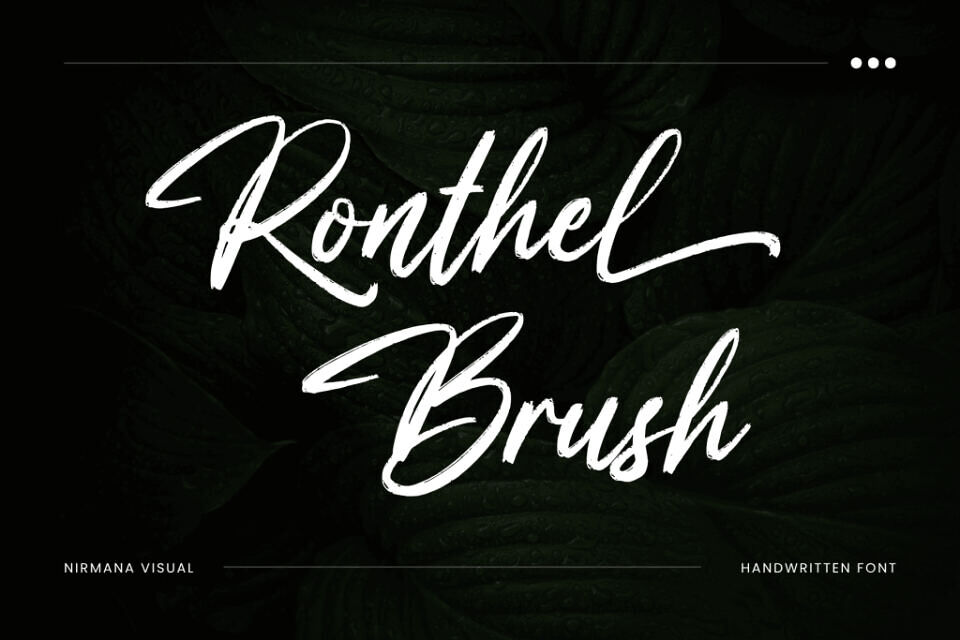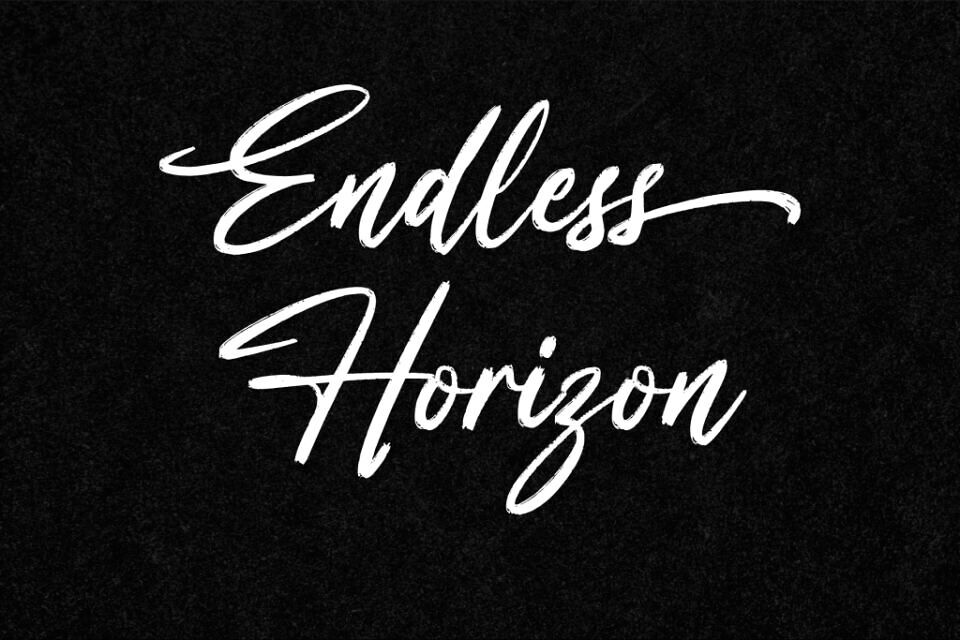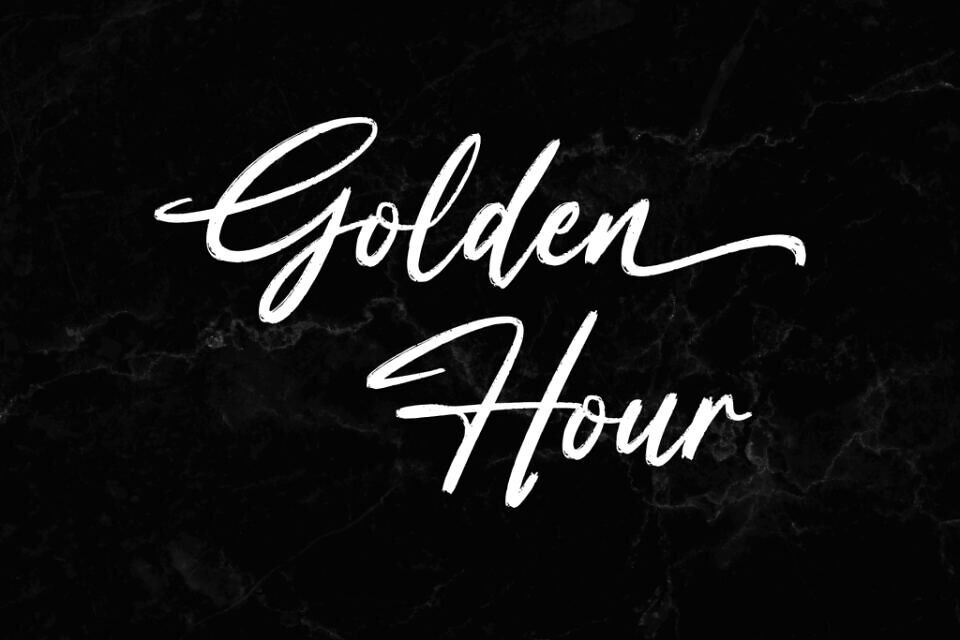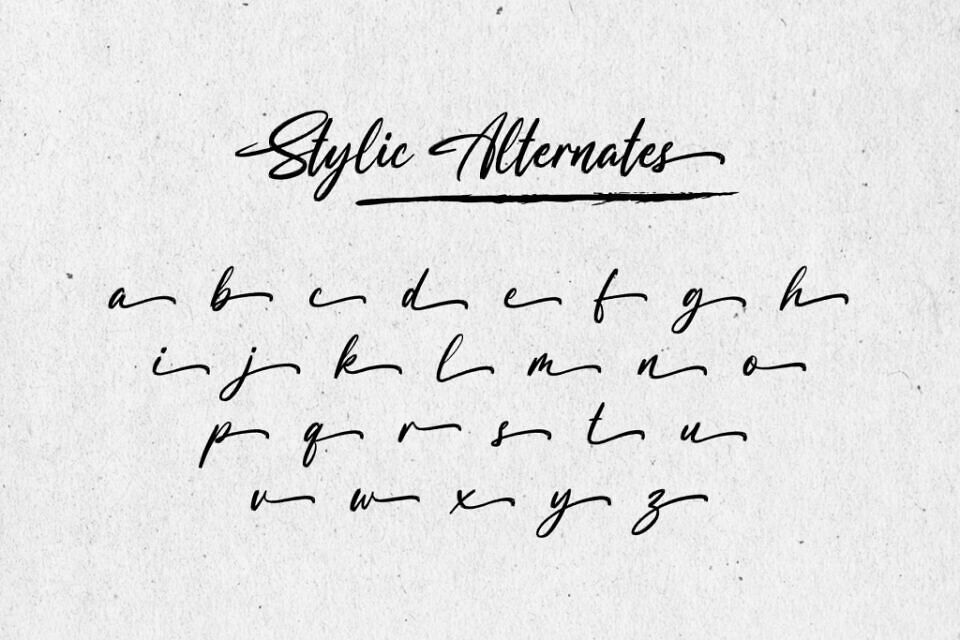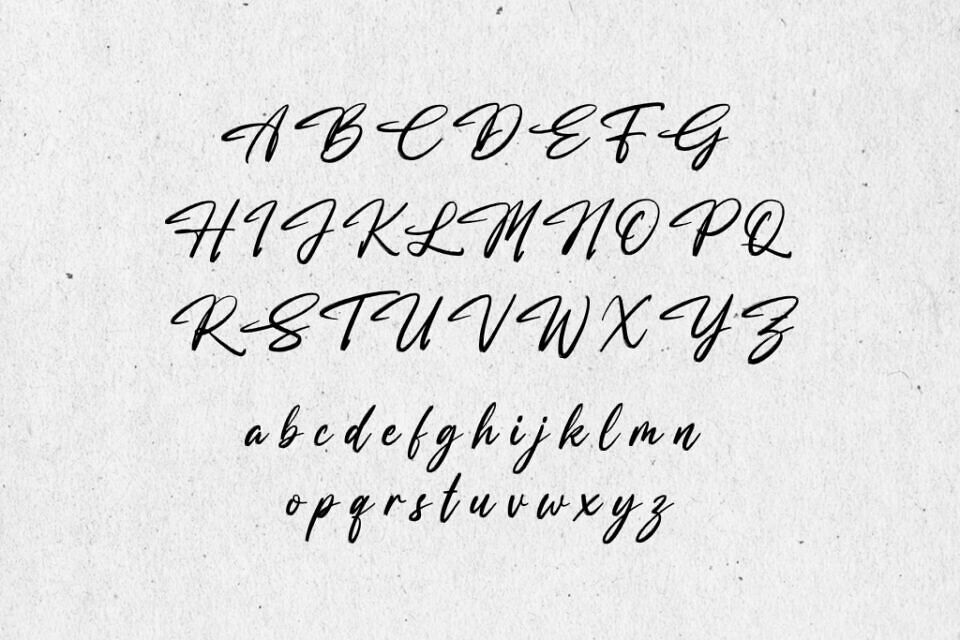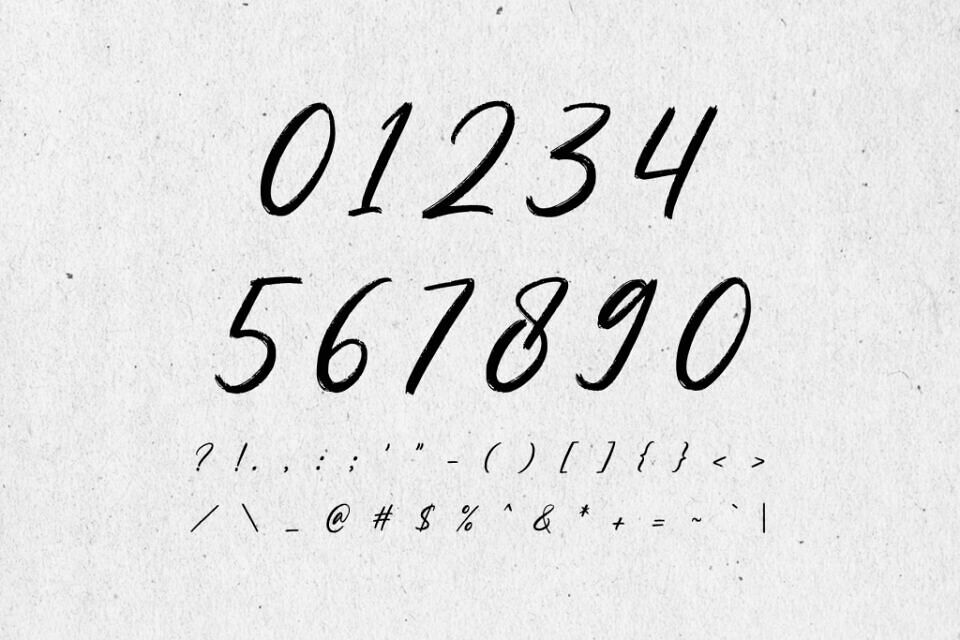
Ronthel Brush is a premium handwritten brush script font that seamlessly blends artistic elegance with a bold, modern casual vibe. Crafted with authentic brush stroke textures, this font brings a powerful, dynamic, and highly personal touch to any creative project.
Whether you are designing streetwear apparel, creating an organic brand identity, or crafting eye-catching social media graphics, Ronthel Brush adds an instant aesthetic edge to your work.